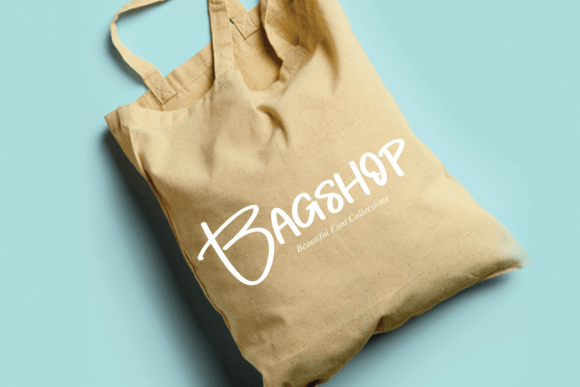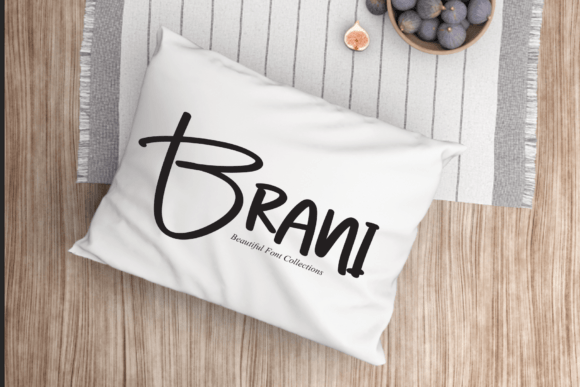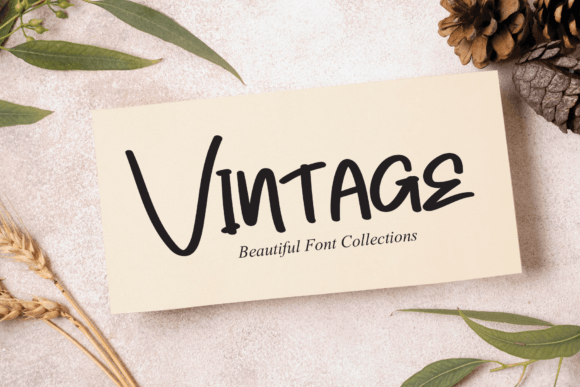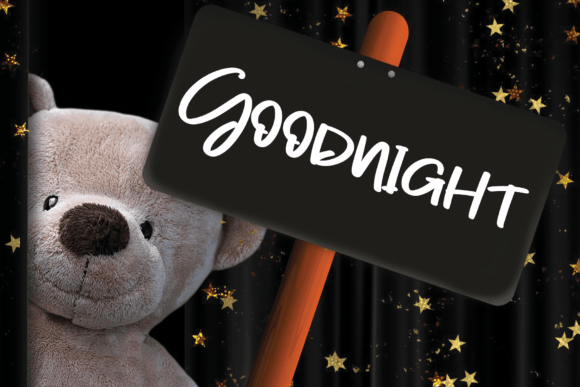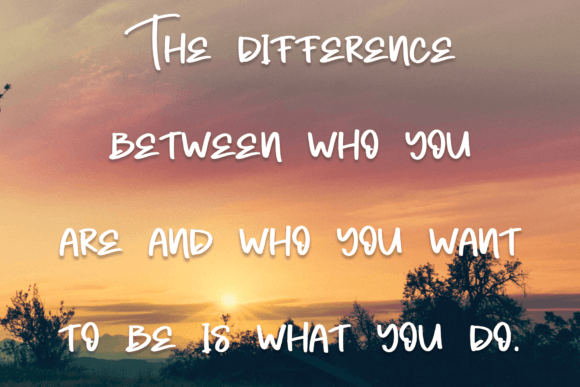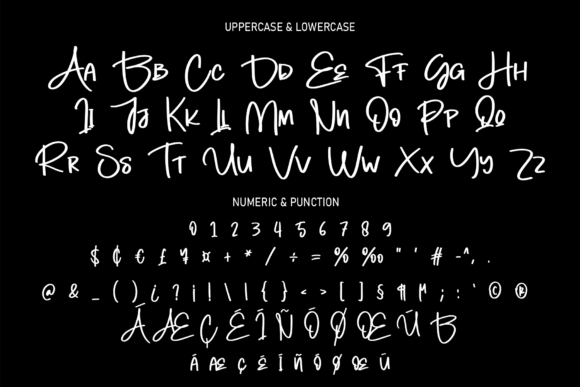
The Quest for the Perfect Font: How Black Girl Font Stole My Heart
Ah, the eternal struggle of finding the perfect font for a design project. I recall a particularly frustrating moment when I was working on a branding project for a new coffee shop. My client wanted a font that was both playful and elegant, but I just couldn’t seem to find the right fit. That was until I stumbled upon Black Girl Font, a whimsical and clean handwritten font that has since become a staple in my design toolkit.
So, what makes Black Girl Font so special? Here are a few things that I absolutely love:
- ✨ **Whimsical yet clean**: Black Girl Font has a playful, handwritten feel that’s perfect for projects that need a touch of personality.
- ✅ **Highly versatile**: This font can easily be matched to a wide range of projects, from branding and packaging to social media graphics and more.
- 💫 **Unique character**: Black Girl Font has a distinct, eye-catching quality that sets it apart from more generic fonts.
Of course, no font is perfect, and Black Girl Font does have a few quirks:
- 🤔 **Limited language support**: While Black Girl Font supports a range of languages, it’s not suitable for projects that require more exotic scripts.
- ⚠️ **Occasional kerning issues**: As with any font, you may encounter some kerning issues when using Black Girl Font. However, these can usually be easily fixed with a bit of manual adjustment.
The Story Behind Black Girl Font
While the origins of Black Girl Font are shrouded in mystery, it’s clear that the designer had a passion for creating unique, eye-catching typography. Perhaps the designer was inspired by the beauty and diversity of African American culture, or maybe they simply wanted to create a font that would bring a smile to people’s faces. Whatever the motivation, Black Girl Font is a true gem that deserves to be celebrated.
| Font Name | Black Girl Font |
| What is Black Girl Font? | Black Girl Font is a whimsical and clean handwritten font, perfect for projects that need a touch of personality. |